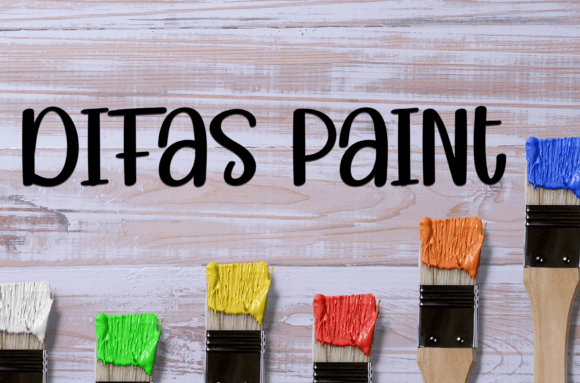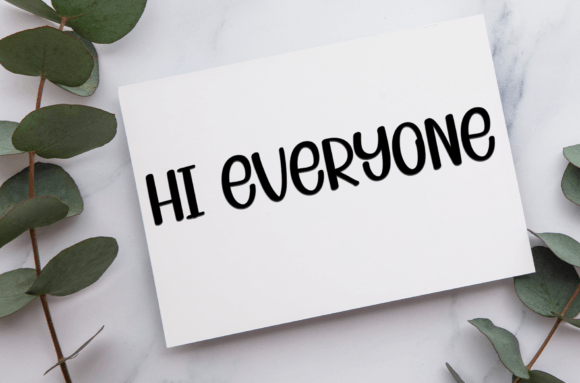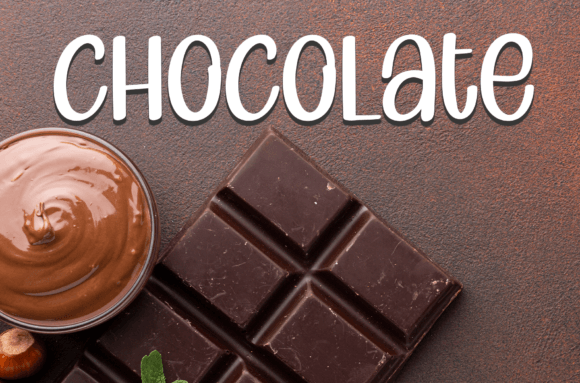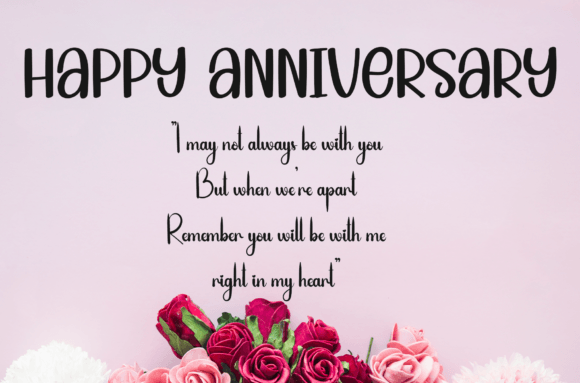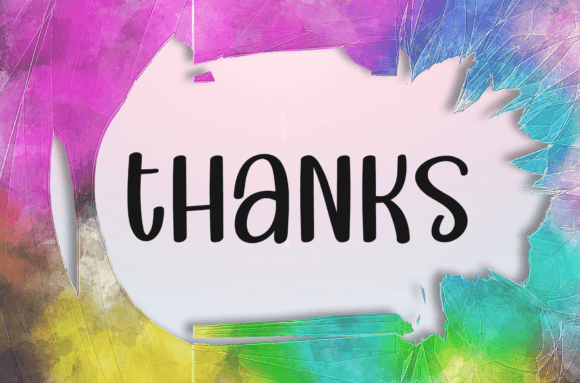
Simple Story Font
About Simple Story Font
Simple Story font is a simple and friendly handwritten typeface designed to add warmth and personality to your creative projects. Whether you’re crafting, working on digital designs, making presentations, or creating greeting cards, this font is an excellent choice. Its approachable style and clean letterforms make it versatile and easy to use for a wide range of occasions.
Friendly and Clean Handwritten Style
The Simple Story font features a clean, natural handwritten look that feels genuine and approachable. Its smooth curves and balanced shapes ensure readability while giving your designs a relaxed and inviting feel. This font helps you communicate in a way that feels personal and heartfelt.
Ideal for Crafts and DIY Projects
If you love crafting or DIY projects, Simple Story font is perfect for adding a handmade touch. It works well for gifts, handmade cards, labels, and more. The simplicity of the font lets it blend effortlessly with various craft styles, enhancing your project’s charm without overwhelming it.
Perfect for Digital Design and Presentations
Simple Story font adapts to digital platforms. Use it for social media posts, blog headers, websites, or presentations to add a friendly and creative flair. Its legibility ensures your message comes across clearly whether viewed on screen or in print.
Great for Greeting Cards and Invitations
Greeting cards require fonts that express sincerity and warmth. Simple Story font delivers this with its natural handwritten style. It’s ideal for holiday cards, thank-you notes, wedding invitations, and all types of personal correspondence. Your messages gain a more intimate and engaging tone.
Versatility for Multiple Occasions
Though simple, Simple Storyfont is highly versatile. It fits casual projects and more formal designs that need a personal touch. From branding and packaging to quotes and posters, this font adapts well to your creative needs.
Why Choose Simple Story Font?
Choosing Simple Storyfont means selecting a that balances friendliness, and clarity. It adds a charm without sacrificing professionalism or readability. Whether you’re a professional designer or a hobbyist, this font enhances your work with a genuine and style.